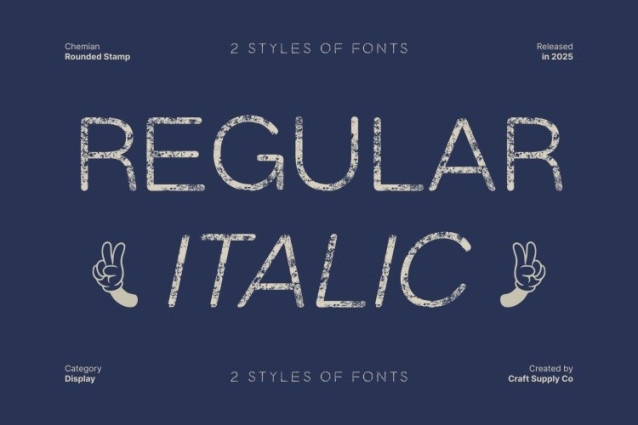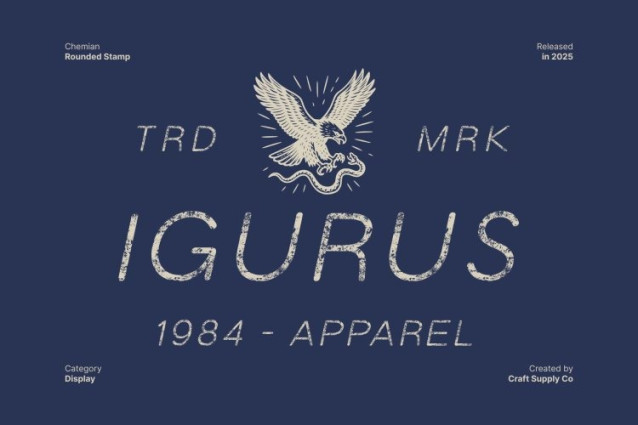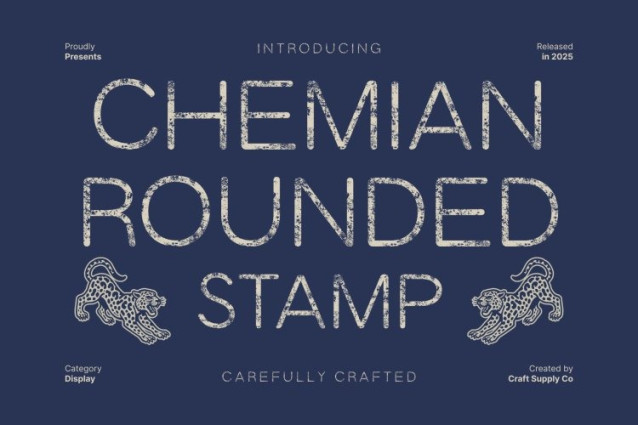
Chemian Rounded Stamp Font
Chemian Rounded Stamp Font This is a grotesque sans serif display font that combines clean, precise shapes with a contemporary rounded style. Its structured forms convey professionalism while maintaining approachability, making it an excellent choice for designers seeking clarity, modernity, and visual confidence in their projects.
Balanced Geometry with Artistic Individuality
The font’s geometric foundation and rounded edges create a harmonious balance between structure and style. Each character is carefully crafted to maintain legibility while offering subtle artistic flair. This balance allows this font to stand out in display settings such as posters, editorial layouts, and bold branding, giving every design a polished yet creative edge.
Stamped Texture for Vintage Appeal
Adding a unique character is the stamp effect, which introduces subtle irregularities and tactile texture. This treatment gives the font a vintage, handcrafted feel, bridging modern precision with nostalgic charm. The combination of clean geometric shapes and textured imperfections ensures each design feels distinctive and visually engaging.
Ideal for Branding, Posters, and Editorial Designs
This font excels in branding, digital and print posters, packaging, editorial headings, and creative display work. Its precise shapes convey professionalism, while the rounded forms and stamped texture add warmth and personality. This versatile font is perfect for projects that require both structured design and artistic individuality.